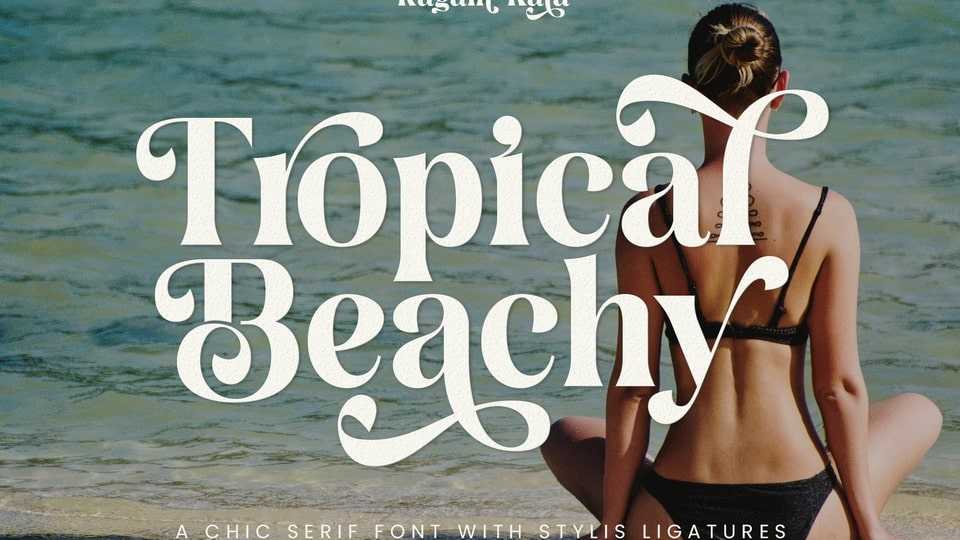
Download Tropical Beachy font, a display serif typeface inspired by the beauty of exotic tropical beaches. With subtle and elegant details on each character, Tropical Beachy gives a classic and professional feel